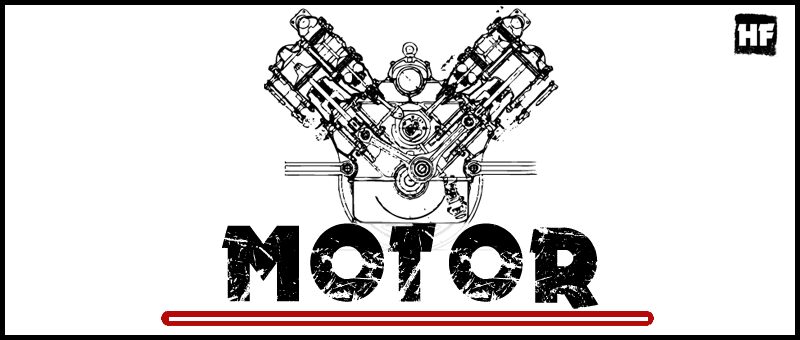
Mator, created by Guilhem Greco, is a free eroded display font with broad, heavy capitals and an industrial silhouette. Scratches, chipped patches, and long scuffs cut through every letter. The wear resembles scraped paint and battered metal rather than a soft vintage fade.
Those abrasive marks echo distressed photography and mechanical illustration in motorsport posters, garage branding, and apparel graphics. On album covers and magazine spreads, the lettering can become part of the printed texture, offering editors a forceful treatment for punk, racing, and workshop themes.